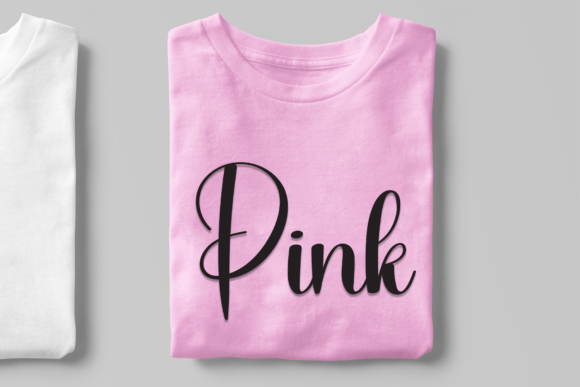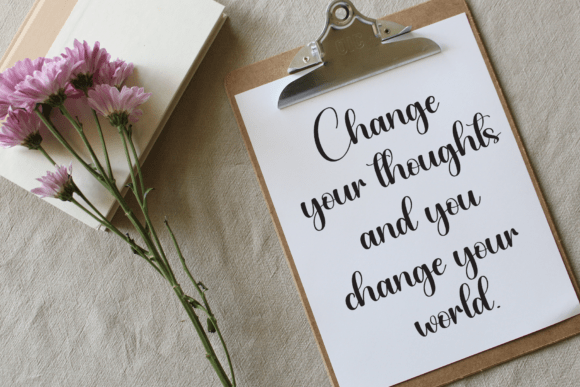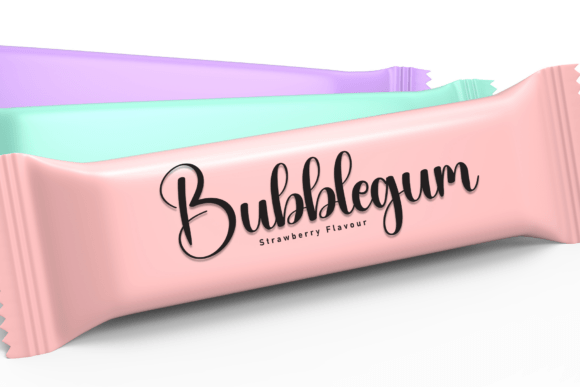
Someting Font
About the Someting Font
The Someting Font is here to transform your projects with its distinctive character and style. Elegant and expressive, this script font flows with effortless beauty. Featuring graceful curves and smooth connections, it’s ideal for adding a sophisticated, handwritten feel to wedding invitations, logos, branding projects, and social media graphics. Whether you’re designing something romantic or refined, this script font brings a timeless charm to any design.
Someting Font Usage Examples
Someting Font Example